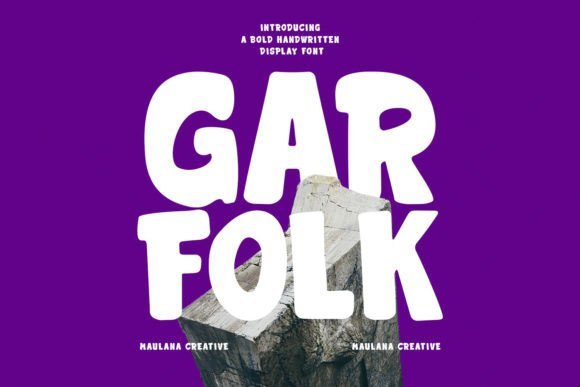
Discover the Joy of Garfolk Font
You know that feeling when you stumble upon the perfect font for your project and suddenly everything falls into place? It’s like a spark of creativity ignites, and you can’t wait to see your design come to life. For me, that moment happened when I discovered the charming Garfolk Font. This quirky handwritten display font is a game-changer for designers who want to add a touch of personality to their work.
With its cheerful and casual vibe, the Garfolk Font is perfect for creating a wide range of projects that exude style and trendiness. Whether you’re designing a logo, social media graphics, or a marketing campaign, this font is sure to bring a smile to your audience’s faces. Its value lies in its versatility and ability to add a human touch to even the most digital of designs.
Garfolk Font Key Features
- Font Family: Garfolk is a unique, handwritten font designed to resemble traditional folk art.
- Character Count: The font includes over 400 characters, including uppercase and lowercase letters, numbers, and punctuation marks.
- Unique Characteristics: Garfolk Font features a hand-drawn, organic feel with subtle texture and imperfections, adding a touch of personality to any design.
Designer Review: Garfolk Font
Overall, I found Garfolk Font to be a visually striking choice, ideal for those seeking a unique, whimsical aesthetic. ✨ Its playful, hand-drawn style makes it perfect for creative projects like children’s books, advertising, or packaging. I appreciate the numerous font styles and weights available, which allow for versatility in design applications.
The font’s organic feel is undoubtedly its strongest feature, reminiscent of traditional hand-painted lettering. ✨ The intricate details and subtle imperfections add to its charm, making it a standout choice for designers seeking a one-of-a-kind look.
However, I did encounter some limitations. ⚠️ The font may not be the best choice for body text due to its relatively low legibility at smaller font sizes. Additionally, the font’s organic nature can sometimes result in uneven letter spacing and irregular word flow, which may require additional adjustments in design.
- Unique, hand-drawn style
- Multiple font styles and weights
- Perfect for creative projects
- Organic feel with intricate details
Ultimately, Garfolk Font is a great choice for designers who want to add a touch of whimsy to their projects. While it may have some limitations, its unique style and versatility make it a valuable addition to any design library.
Garfolk Font: A Practical Application Guide
For a more authentic look, use the Garfolk Font in conjunction with distressed textures and earthy colors.
For a more rustic look, use the Garfolk Font with hand-drawn elements and natural textures.
For a more vintage look, use the Garfolk Font with distressed backgrounds and ornate frames.
The Garfolk Font is perfect for:
- Creating rustic wedding invitations and decorations.
- Designing vintage-inspired advertisements and marketing materials.
- Adding a touch of whimsy to children’s party invitations and decorations.